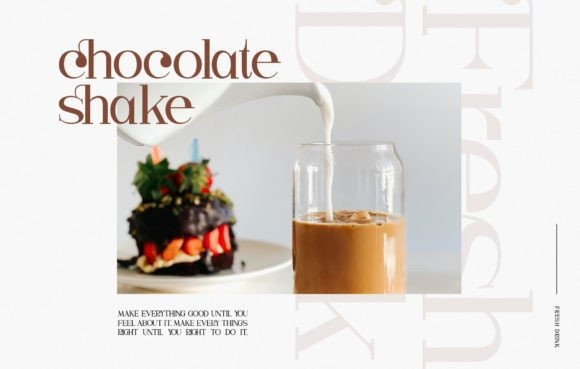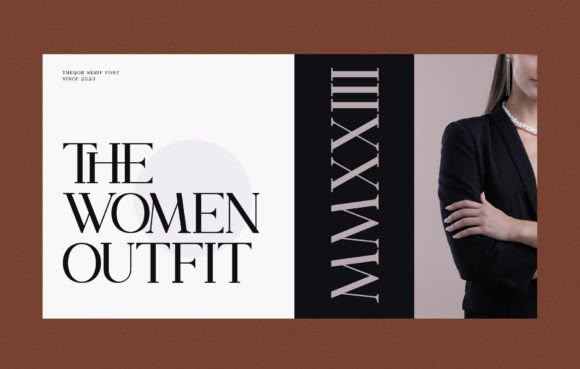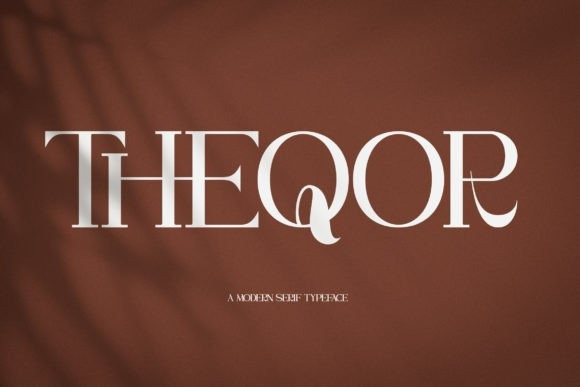
Theqor Font
Theqor Font is a modern and elegant serif font. This customizable font will look great on a variety of design ideas such as logo signs, fashion & editorial design heads, branding projects, clothing, packaging, magazine titles, advertisements, T -shirts, postcards and so much more.